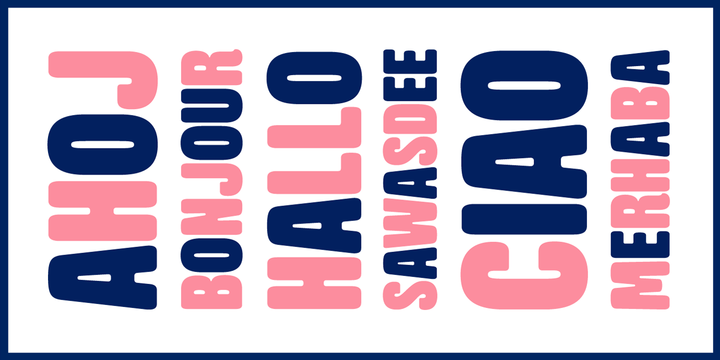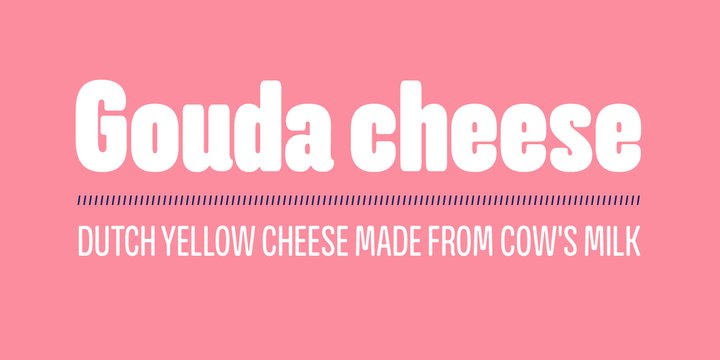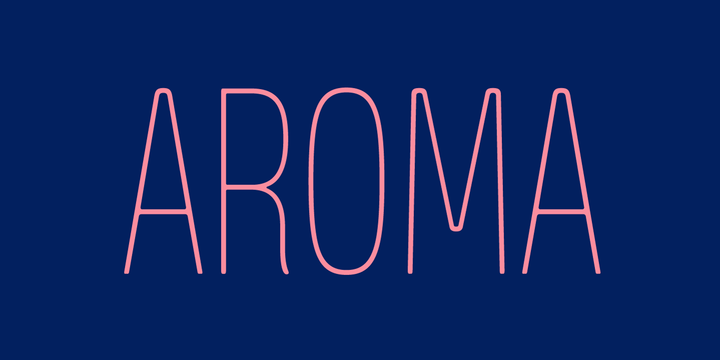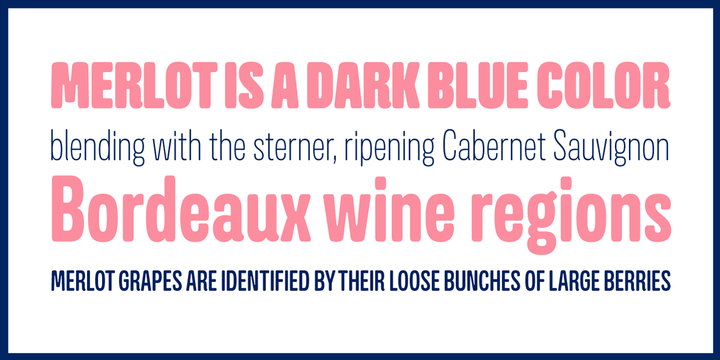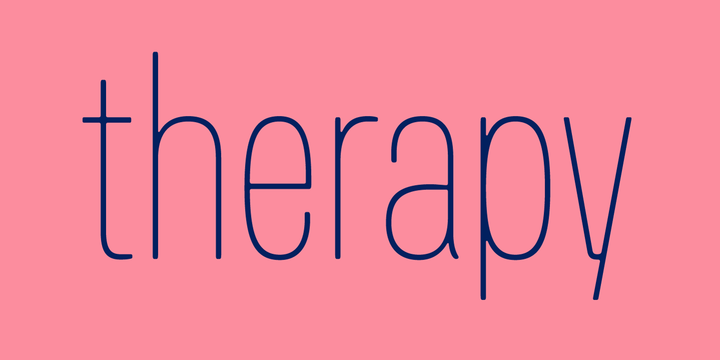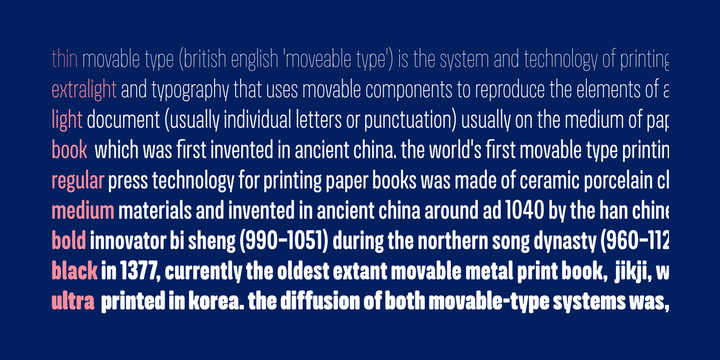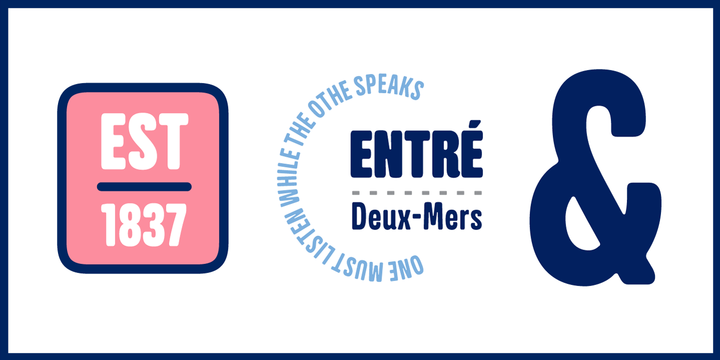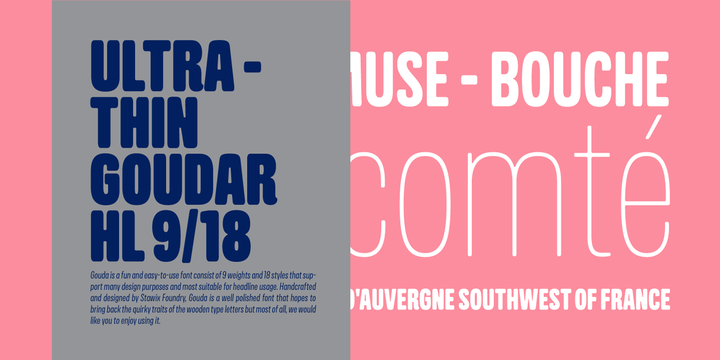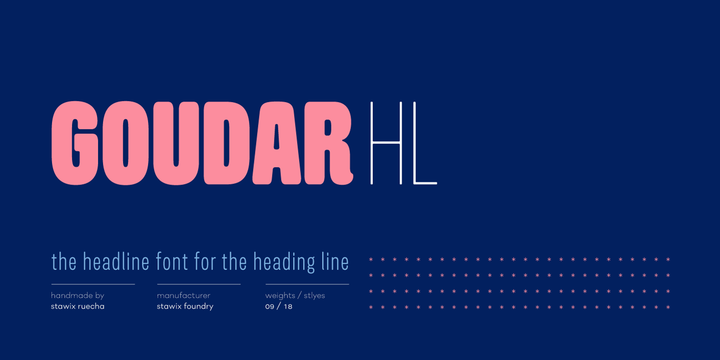
Goudar HL Font Family
From the old days technique to the present technology of type design, Goudar is the font that meets in the middle. With the design that has acquired the essence of wooden type letterpress but added with our own modern twist.